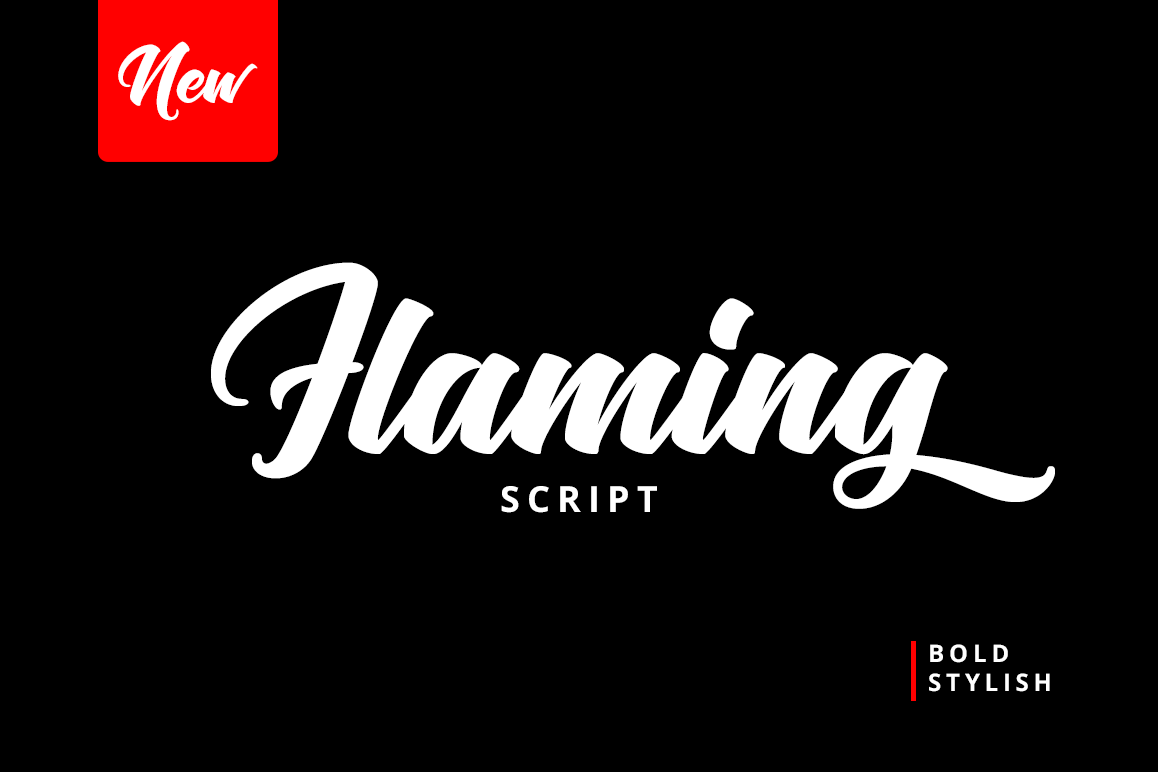
Flaming Script
Flaming is a bold and stylish script font. Can be used for your various design projects such as posters, magazine covers, t-shirt designs, flyers, logotype and much more.
• Numeral & Punctuation
• Discretionary Ligature
• Stylistic Set